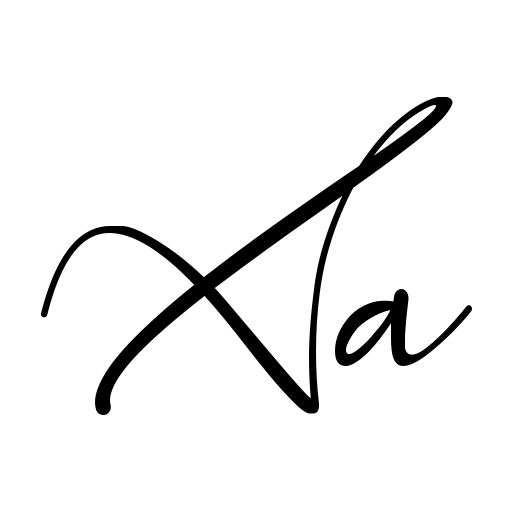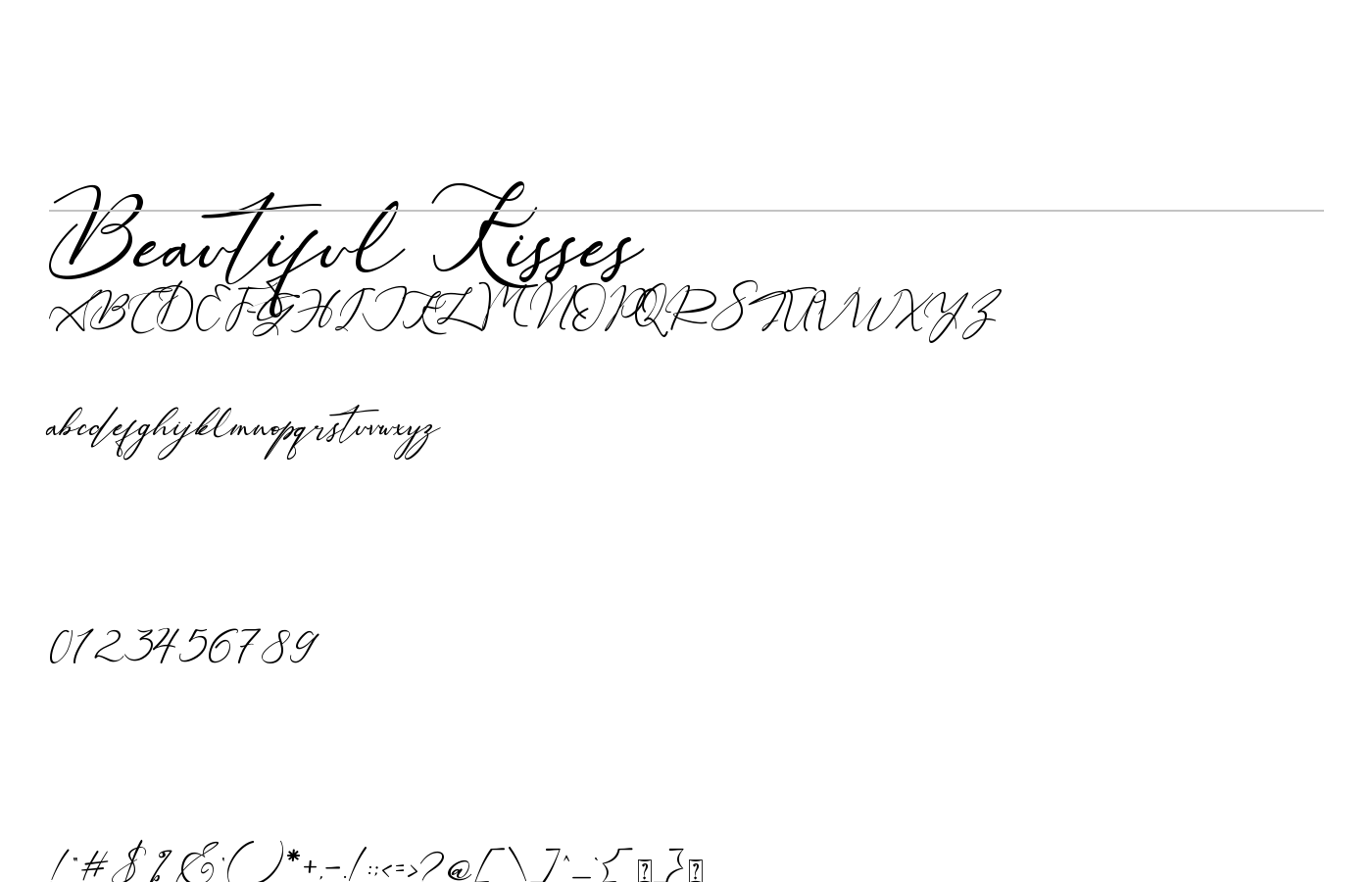
Beautiful Kisses is a delicate, elegant script font featuring flowing, thin strokes with a natural calligraphic style. Its finely detailed uppercase and lowercase letters create a romantic, sophisticated feel, perfect for invitations, branding, and any design seeking a graceful, feminine touch. This font works beautifully in decorative uses where a refined, personal ambiance is desired.
Beautiful Kisses Font
About Beautiful Kisses Font